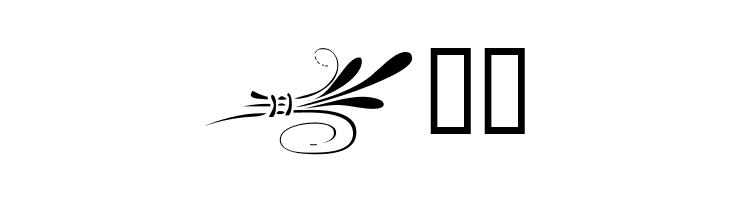
• KR Snowboarder
A bold, uppercase font with snowboarder silhouettes for a dynamic, sporty look.
• KR Three Flowers
A decorative font with letters in flower pots, topped with three flowers.
• KR Uphill Battle
A decorative font with bold letters and whimsical frog illustrations.
• KR Valentines 2006 Nine
A decorative collection of Valentine's-themed elements with hearts and flowers.
• KR Grads 2002
A collection of graduation-themed illustrations in a playful, cartoonish style.
• KR Fleur Flair 3
An artistic, floral-inspired decorative font with intricate embellishments.
• KR Father's Day Dings
A playful, thematic font featuring Father's Day phrases and symbols.
• KR Toon Numbers
A playful cartoon-style font with animated numbers featuring expressive faces.
• KR Simple Fleur 6
The image contains decorative floral elements, not a standard font.
• KR Out Of This World
A decorative font with playful, space-themed illustrations.